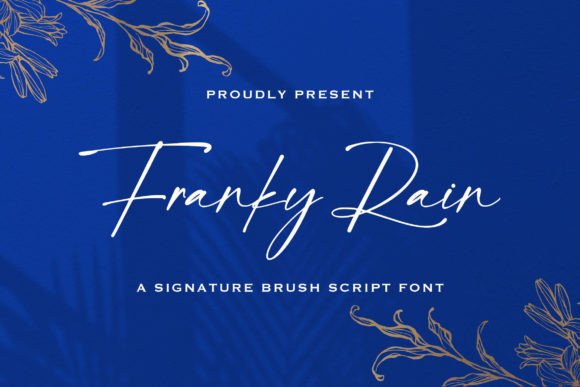
Unleash the Finesse of Franky Rain: The Signature Font That Elevates Your Creativity!
Indulge in the allure of Franky Rain, a script font that weaves elegance and grace onto your digital canvas. Its delicate strokes and rhythmic flow caress the pages, leaving a trail of artistry and charm. Each character is a testament to meticulous craftsmanship, ensuring harmonious balance and captivating aesthetics.
With Franky Rain, your signature becomes a masterpiece that proclaims your unique style. Let its flowing lines glide effortlessly across your digital signature block, transforming it into a personal statement of elegance and sophistication. Whether you're crafting a professional document or adding a touch of personality to your social media presence, Franky Rain empowers you to stand out with distinction.
But Franky Rain's enchantment extends far beyond signatures. Its versatility knows no bounds, seamlessly adapting to a myriad of design creations. From eye-catching invitations to captivating branding materials, this font infuses your ideas with an undeniable allure. Its flowing nature lends itself perfectly to logos that exude elegance and bespoke designs that evoke a timeless charm.
As you explore the limitless possibilities of Franky Rain, you'll discover a font that transcends mere aesthetics. Its ability to convey emotions and evoke a sense of occasion makes it the perfect choice for wedding invitations, heartfelt letters, and any project seeking a touch of heartfelt elegance.
Crafted by the renowned StringLabs foundry, Franky Rain is a testament to their dedication to excellence. Its sleek design and attention to detail are evident in every stroke, ensuring that your creations shine with grace and sophistication.
Embrace the allure of Franky Rain today and unlock a world of creative possibilities. Let its flowing lines and delicate charm enhance your digital creations, leaving a lasting impression that speaks volumes about your discerning taste and unwavering pursuit of beauty.